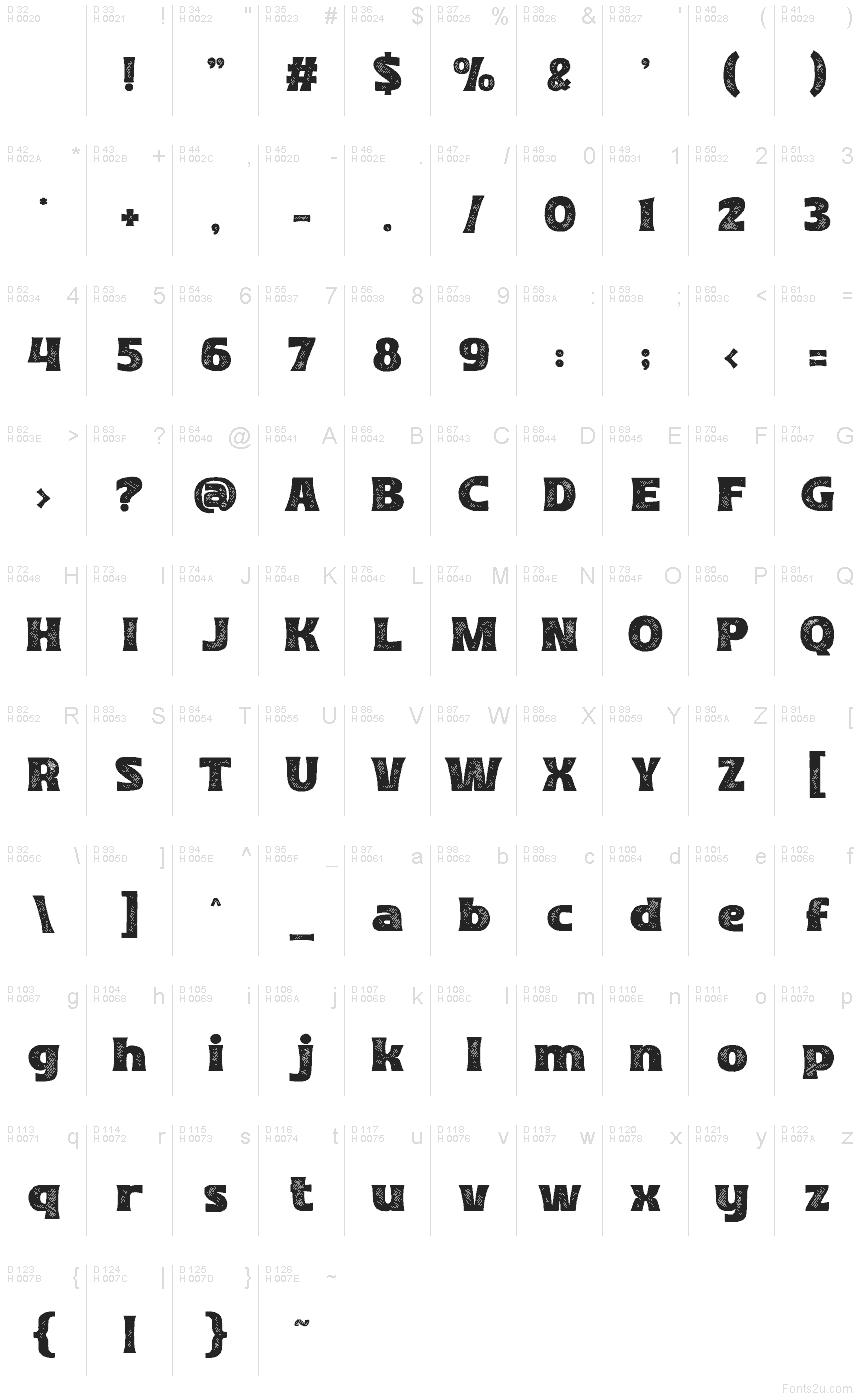
Stepon Texture
Stepon Texture font by PutraCetol Studio is a free eroded display typeface. Part of the Stepon family, it packs chunky, rounded forms with a scratched, diagonal hatch that feels like ink dragged across rough paper. The texture isn’t random noise—it creates a steady grain that keeps letters bold and legible while adding grit, so headlines look loud without shouting.
Using Stepon Texture, you get that scuffed, streetwise energy that shines on gig posters, skate or streetwear branding, game titles, craft beer labels, sticker packs, and bold YouTube thumbnails. The sturdy weight builds tight, cohesive word shapes, while the inner scratch gives depth that reads from a distance. Pair this free font with a clean, untextured sans for body copy to let the gritty headline do the talking.